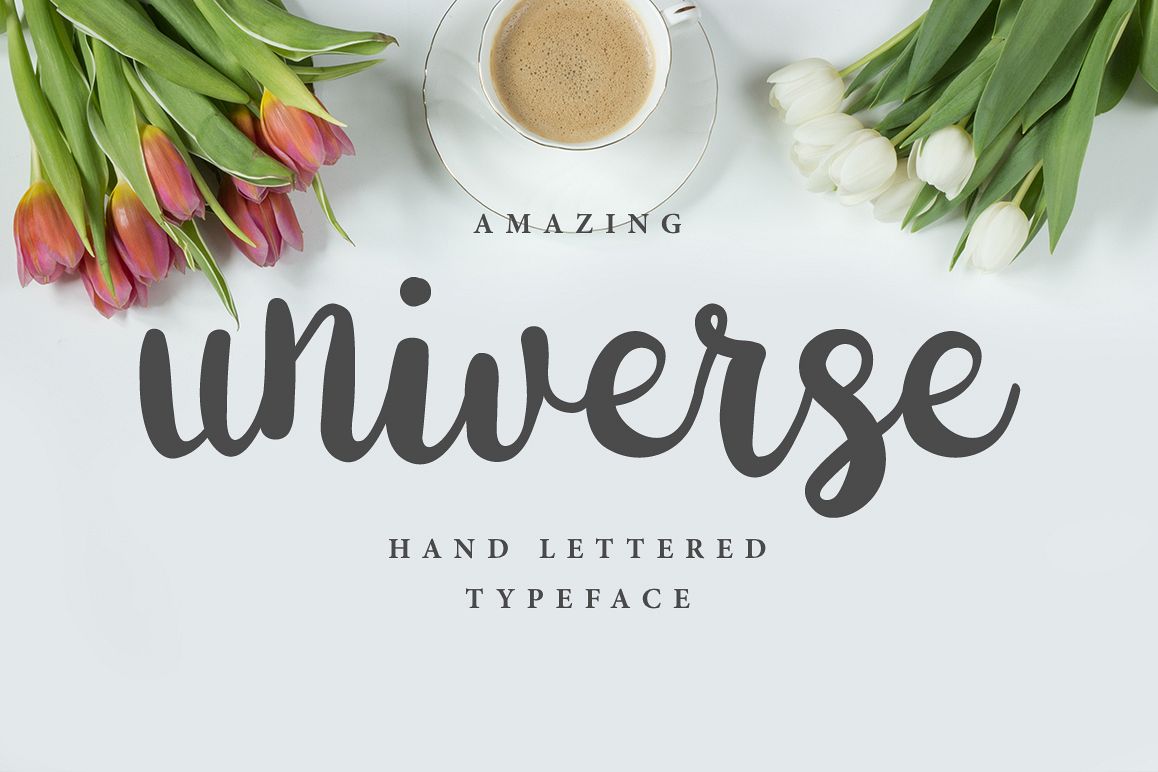
Universe Brush Font
It's a sweet hand lettered font. Also with this type, you will see a lot of interesting extras. This brush font is ideal for branding and decorate your any project.
You can create perfect and unique design of your wedding postcard, logo, blog, stationery, marketing, magazines and more